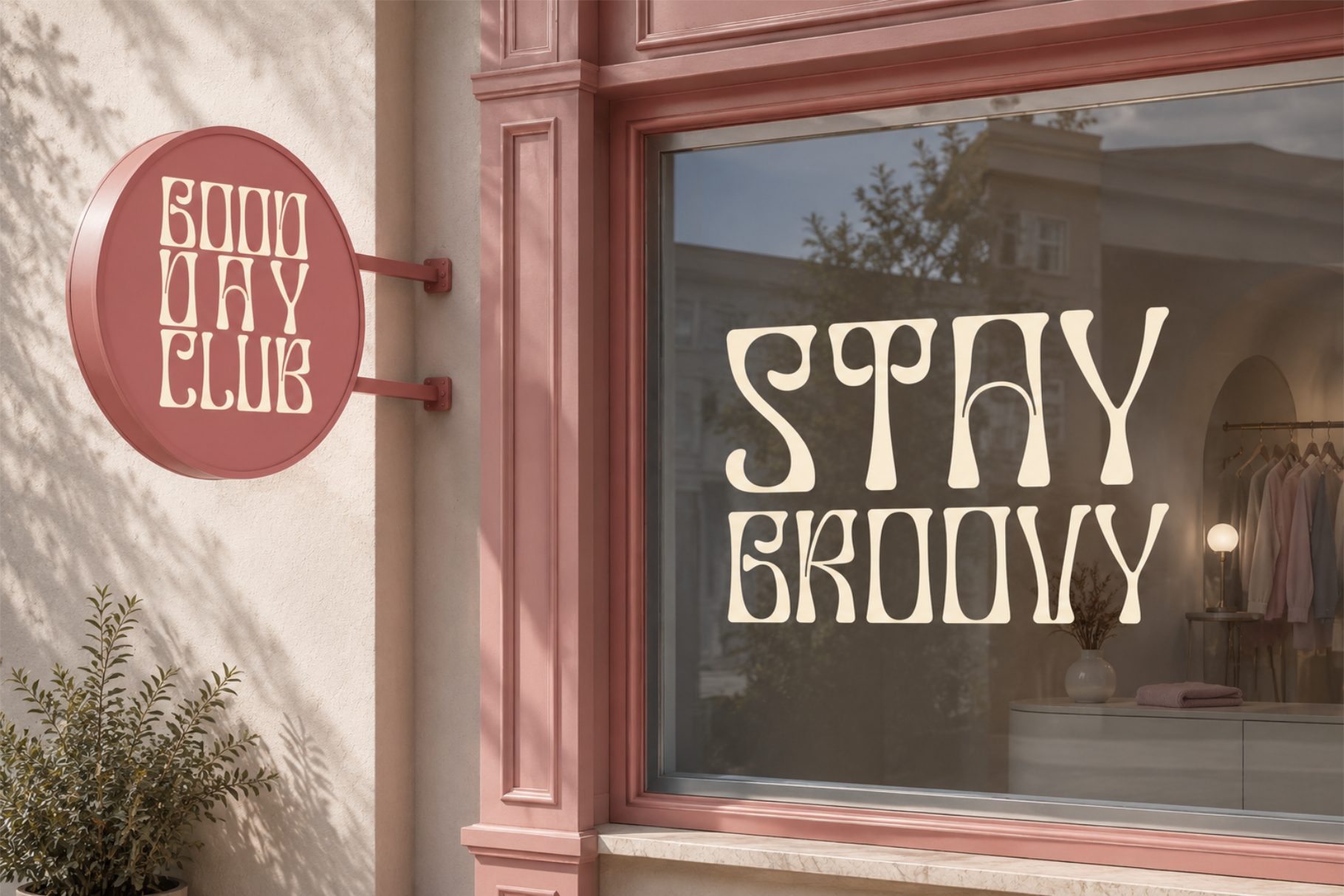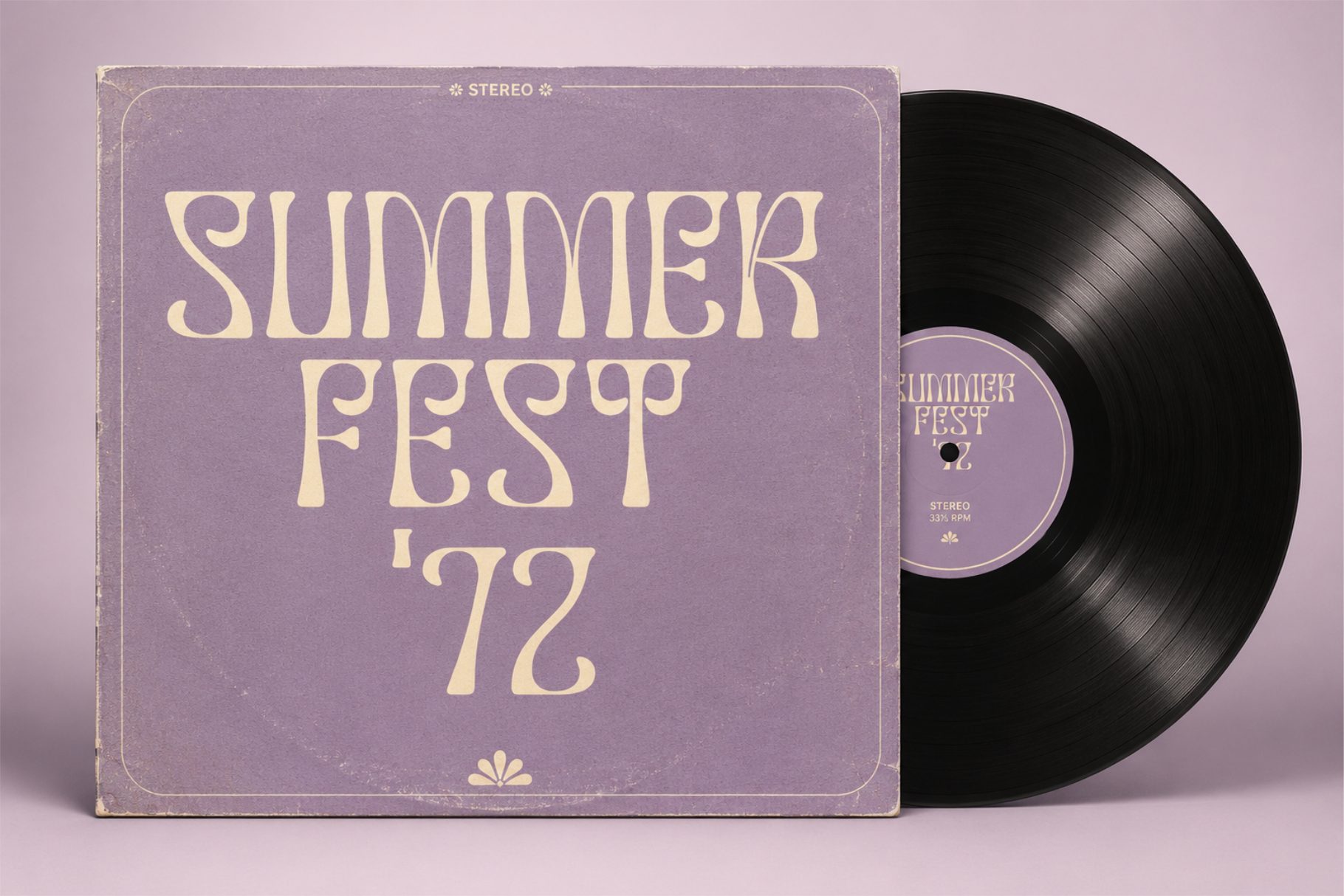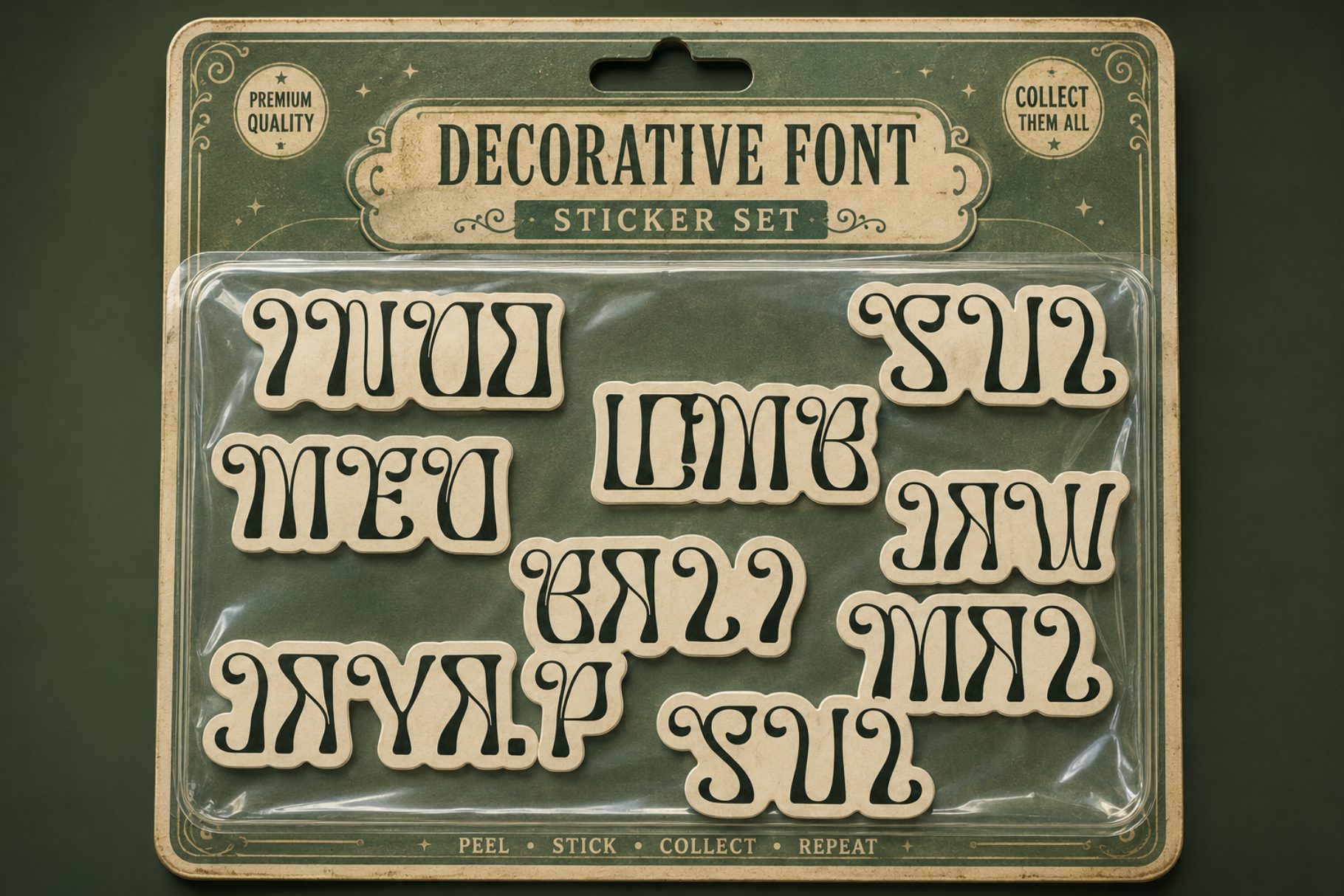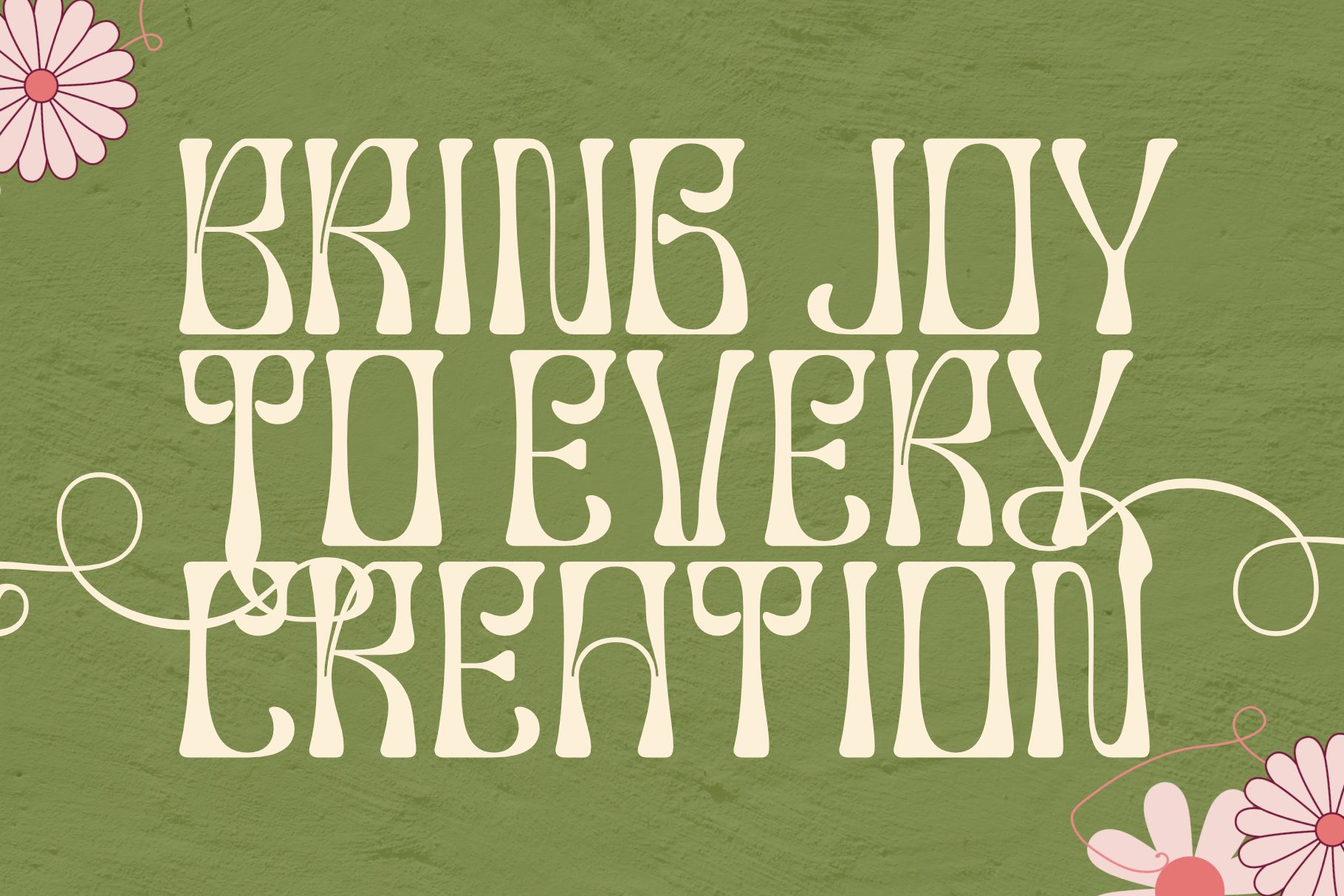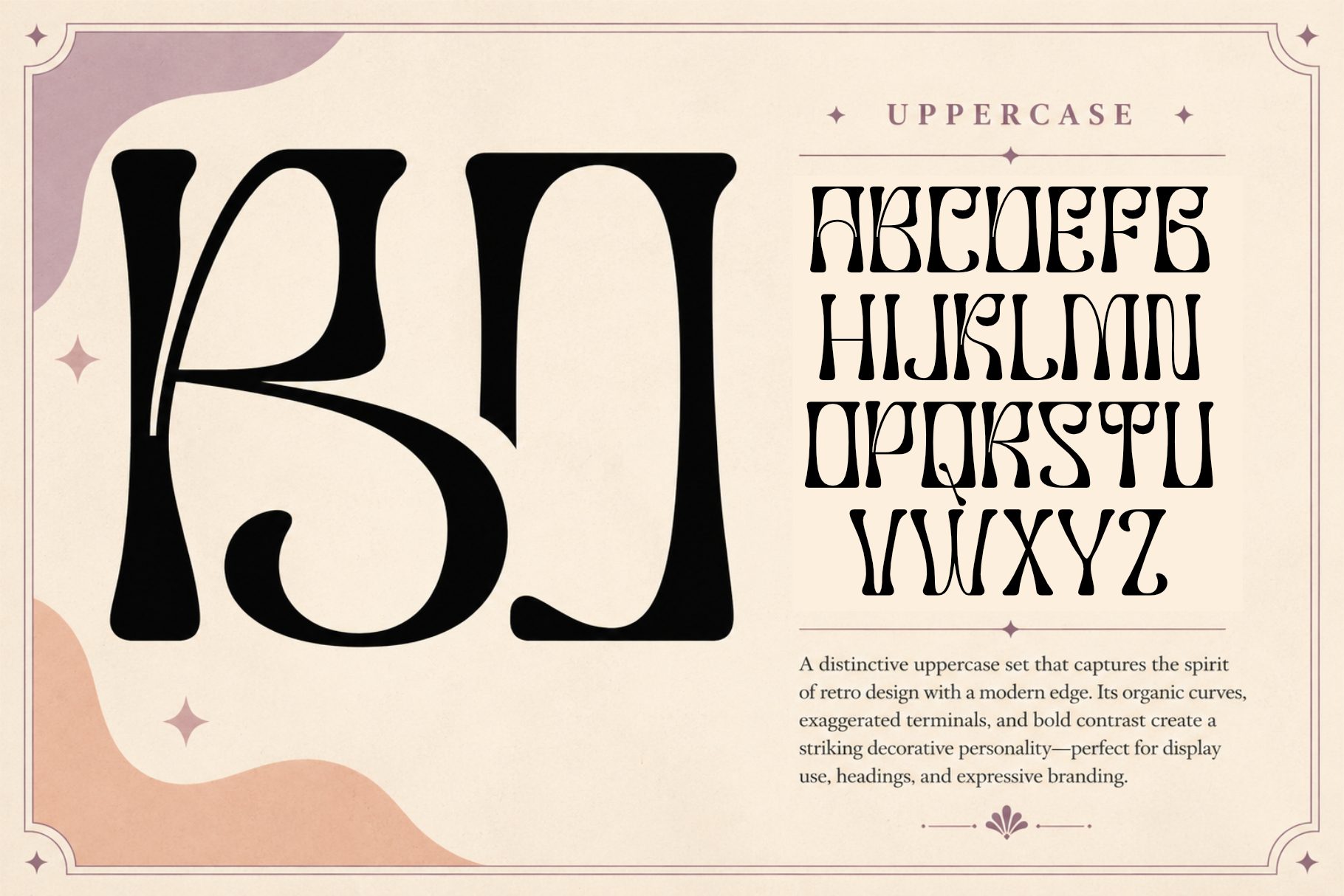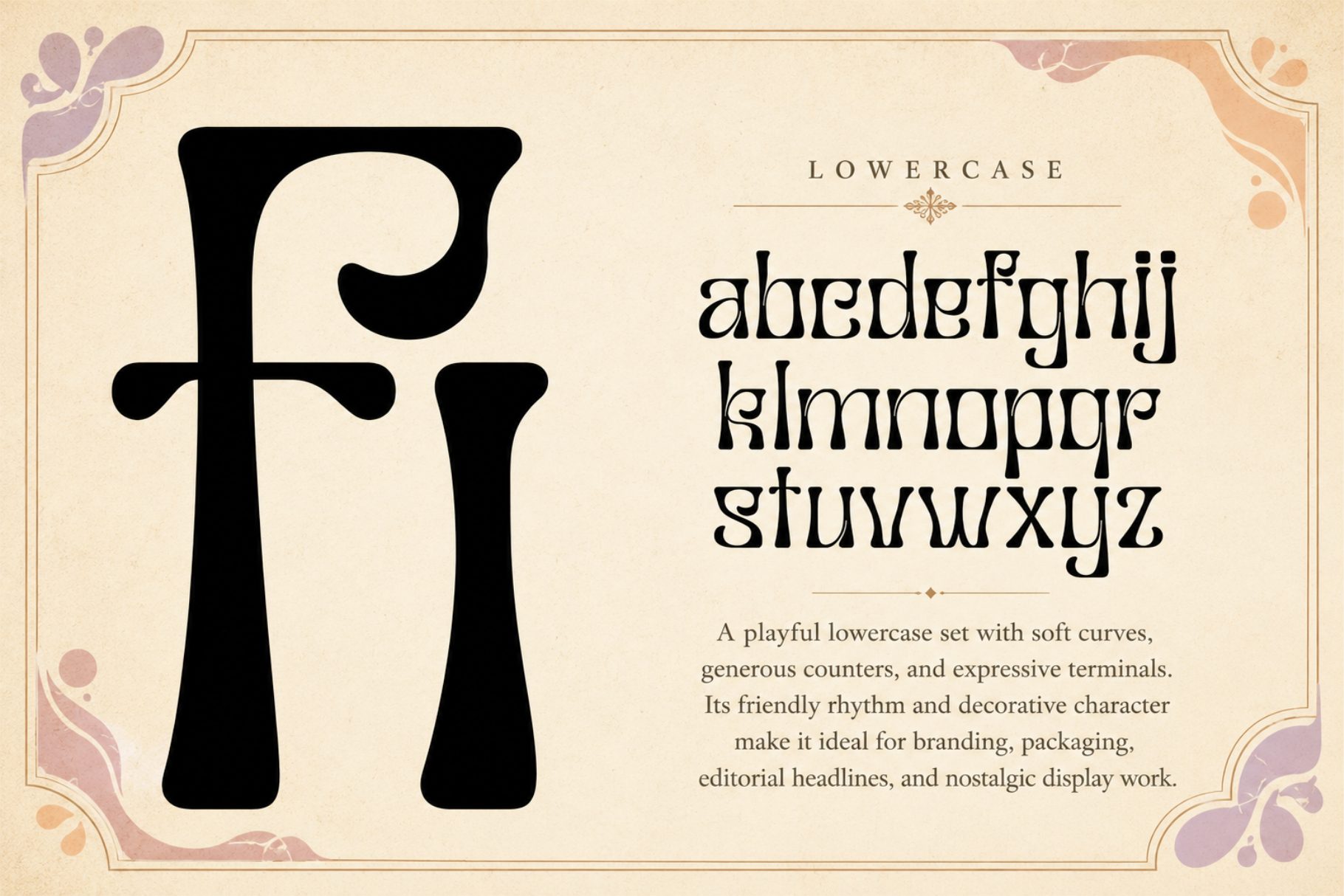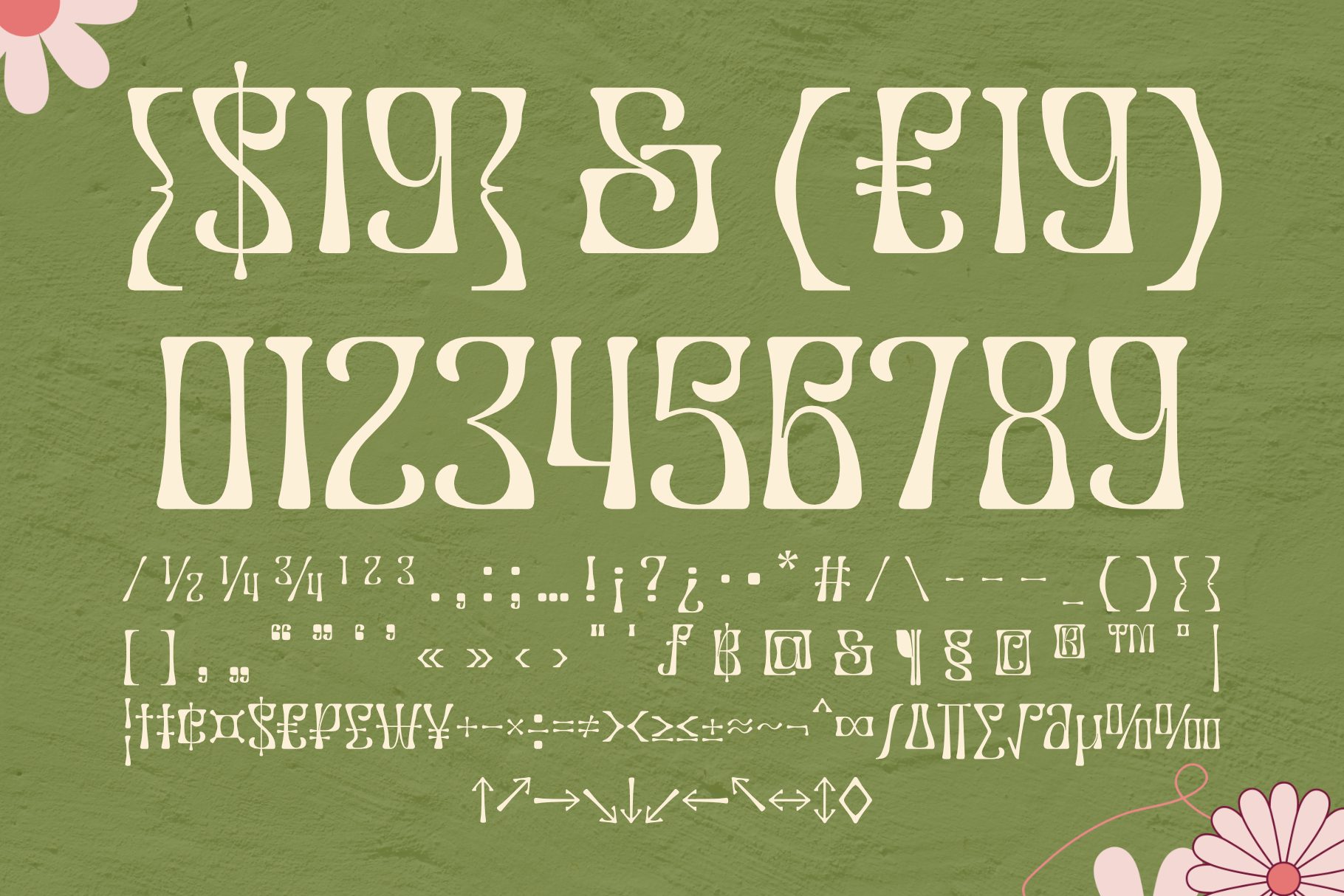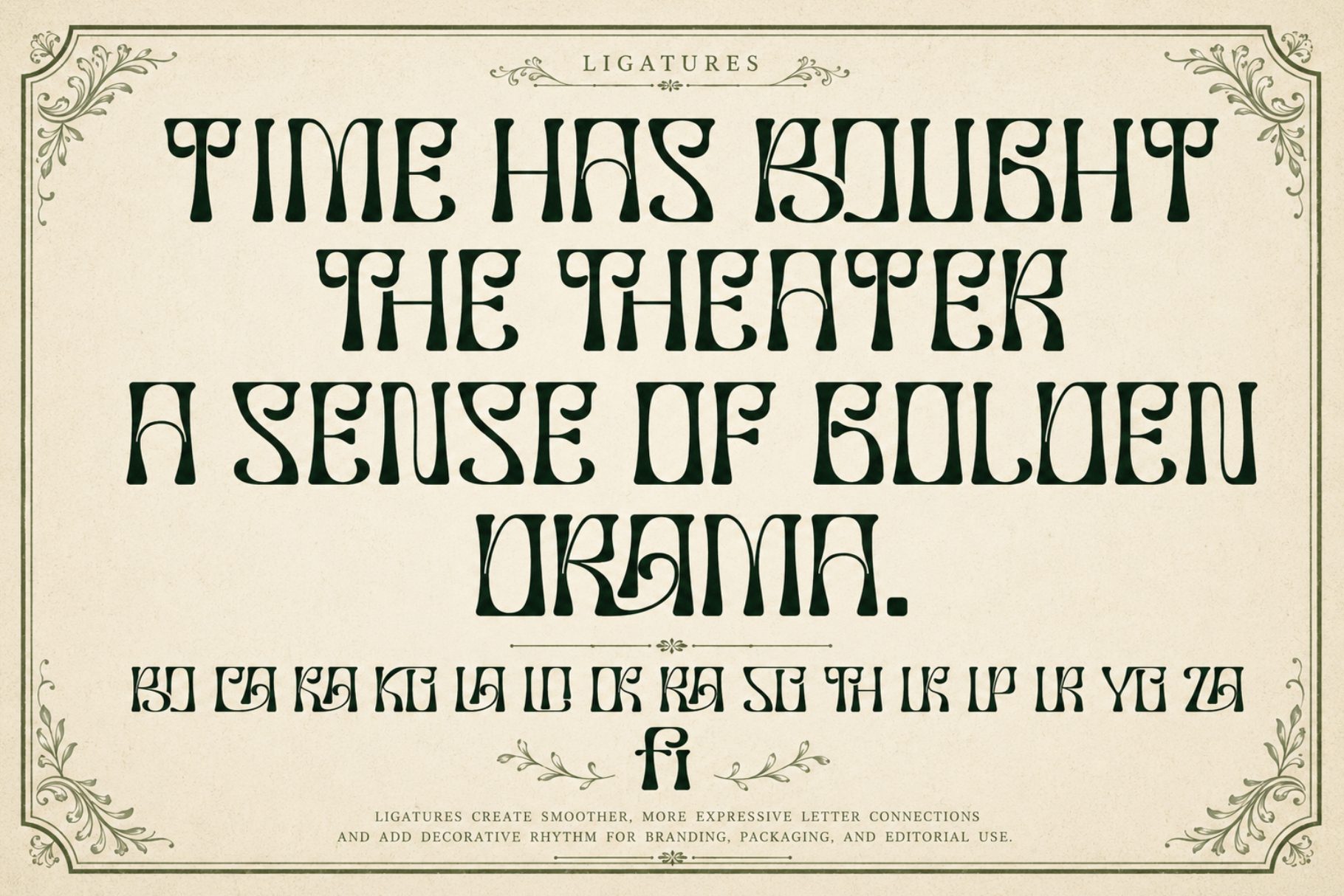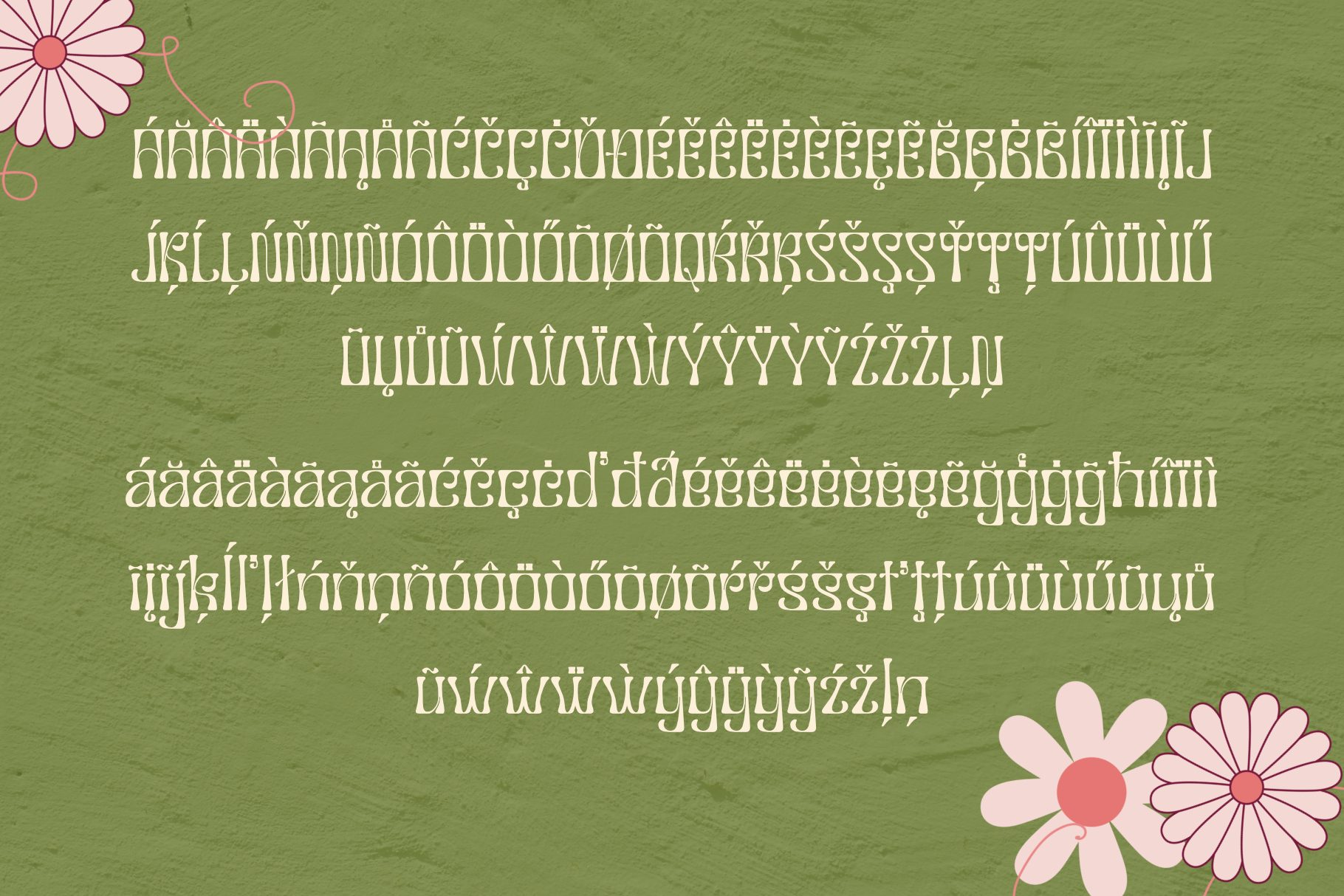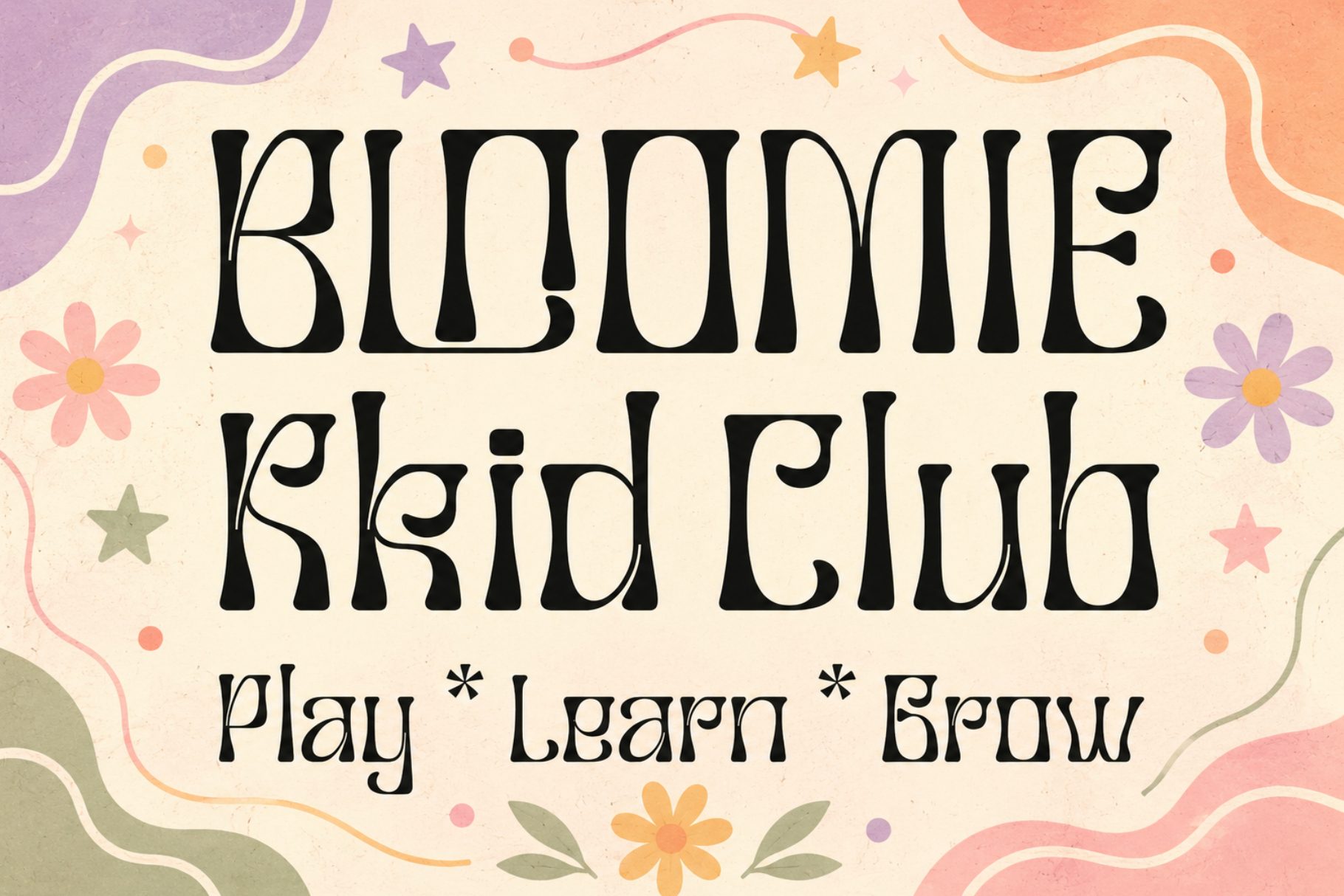
Musaic - Groovy Retro Display Serif
Musaic
A playful 70s-inspired display serif with bold curves, decorative rhythm, and flower power charm.
Musaic is a groovy retro display serif inspired by the joyful spirit of 70s flower power design. With bold curves, expressive letterforms, stylish alternates, and decorative ligatures, it is made for memorable logos, packaging, posters, merchandise, and standout visual branding.
Musaic is a decorative display serif designed for projects that need warmth, personality, and a strong nostalgic presence. Inspired by the playful energy of 70s flower power aesthetics, this typeface brings together bold shapes, soft curves, expressive terminals, and ornamental details in one charming retro system.
Its character feels cheerful, confident, and highly memorable, making it a beautiful choice for designers who want typography that instantly becomes the visual focus. Musaic works especially well in large display settings, from brand logos and product packaging to posters, social media graphics, sticker designs, boutique signage, and creative merchandise.
The font includes distinctive uppercase and lowercase characters, numerals, punctuation, multilingual characters, ligatures, and stylistic alternates to help you build more expressive wordmarks and custom-looking typography. Whether you are designing a groovy brand identity, a playful kids project, a nostalgic poster, or a boutique product label, Musaic gives your work a bold retro voice with a polished decorative finish.